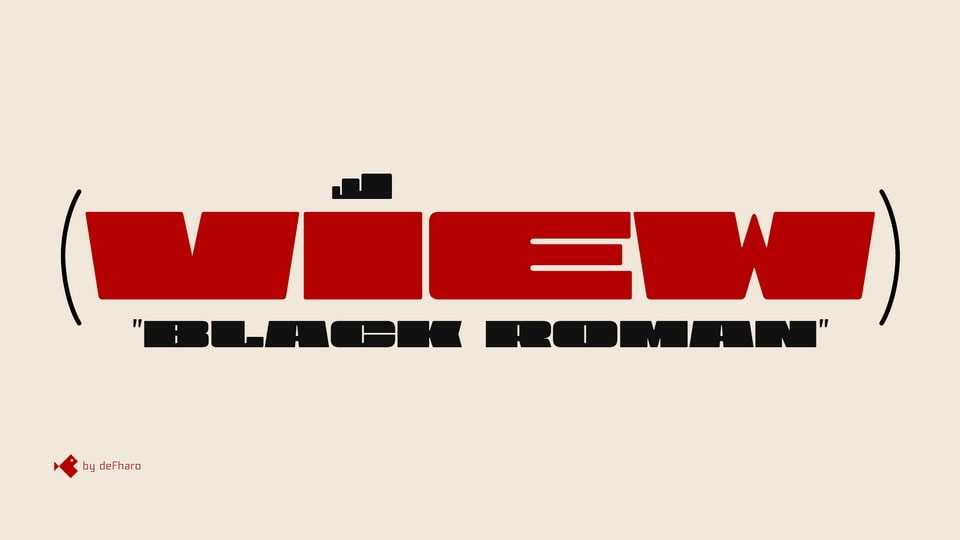
Download View font, designed to stand out, make an impact, and dominate any visual space with elegance. Its exaggeratedly wide proportions and black weight don’t ask for permission:
Designer: Fernando Haro